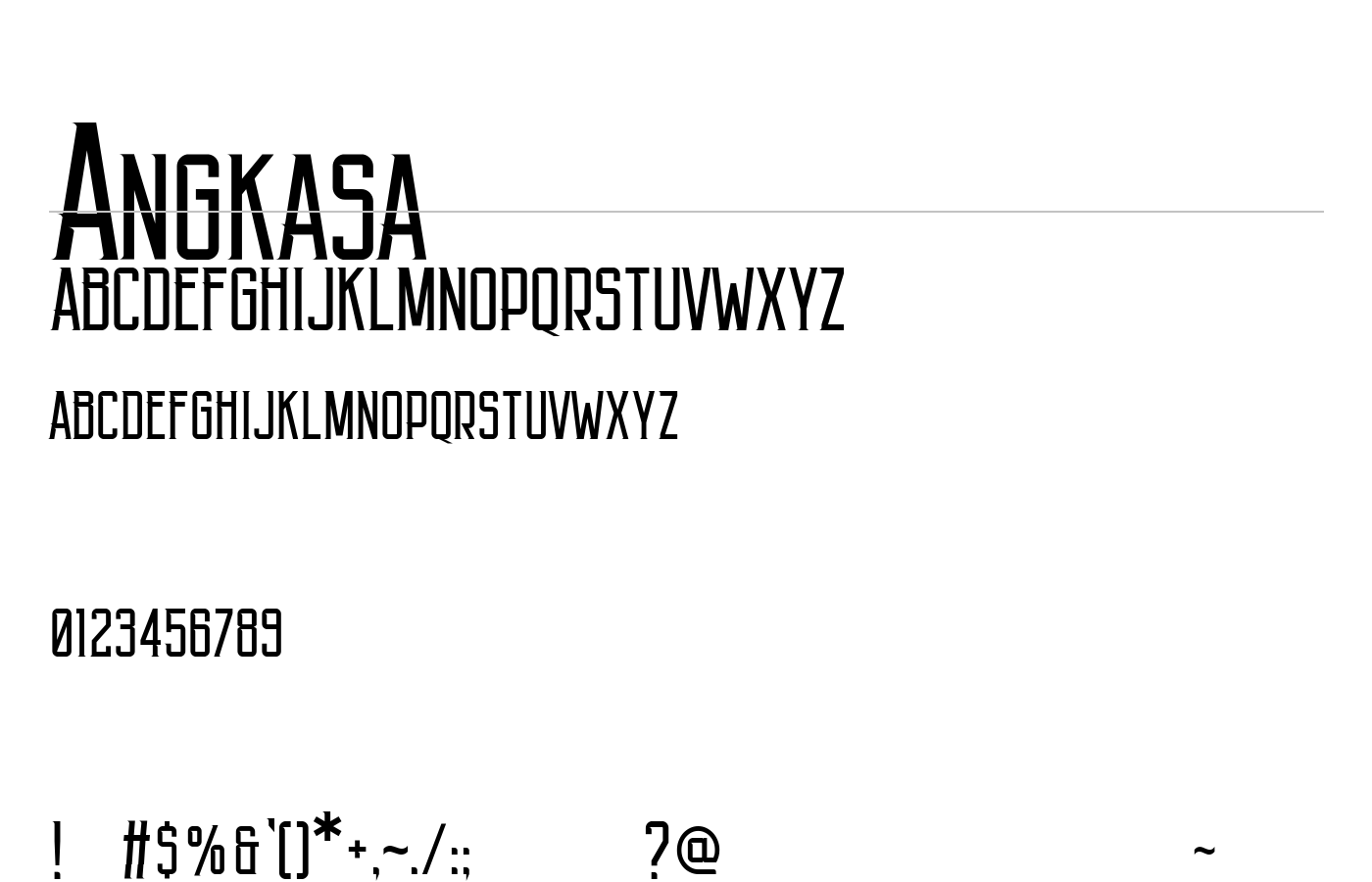
Angkasa is a tall, condensed sans serif font with a distinctly modern and edgy feel. Its high contrast between thick and thin strokes, along with sharp, angular letterforms and a strong vertical emphasis, gives it a striking and confident appearance. Ideal for headlines, logos, and branding that seek a bold, contemporary look with a touch of sophistication.
Angkasa Font
About Angkasa Font
| Font family | Angkasa Font |
| Designer | Rokoe Type |